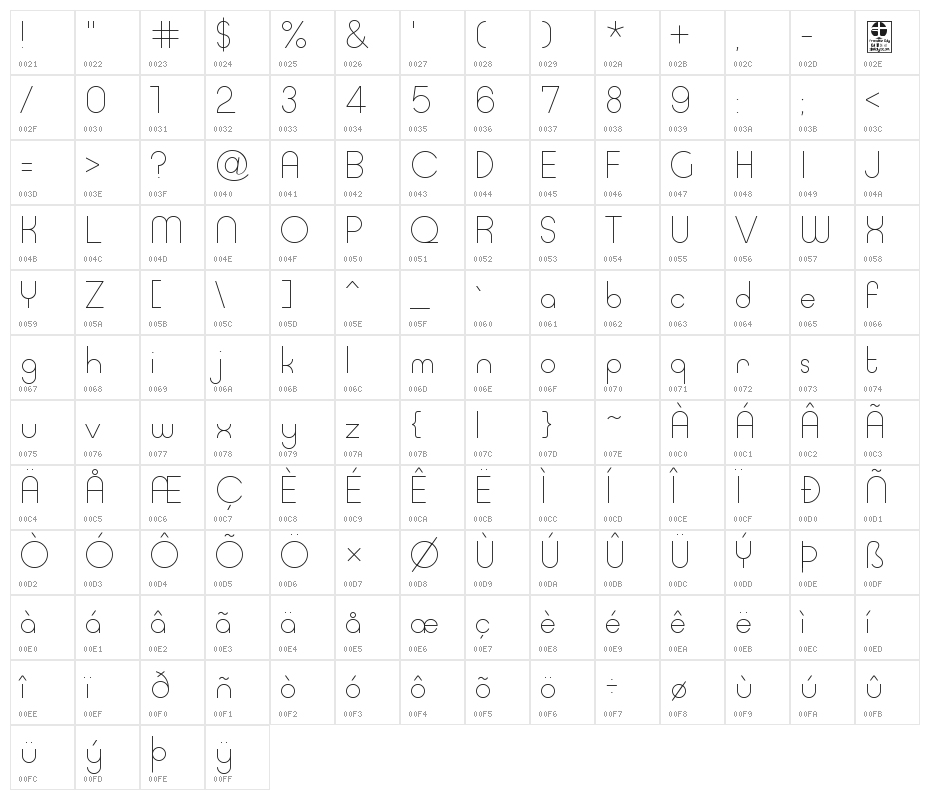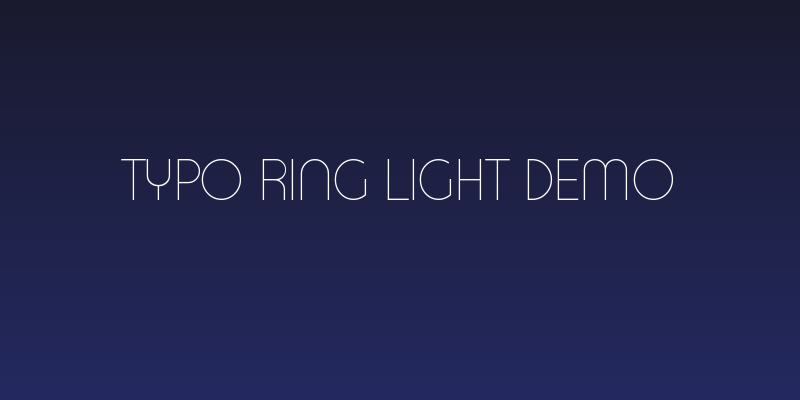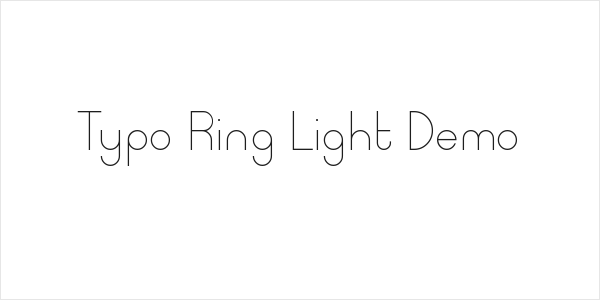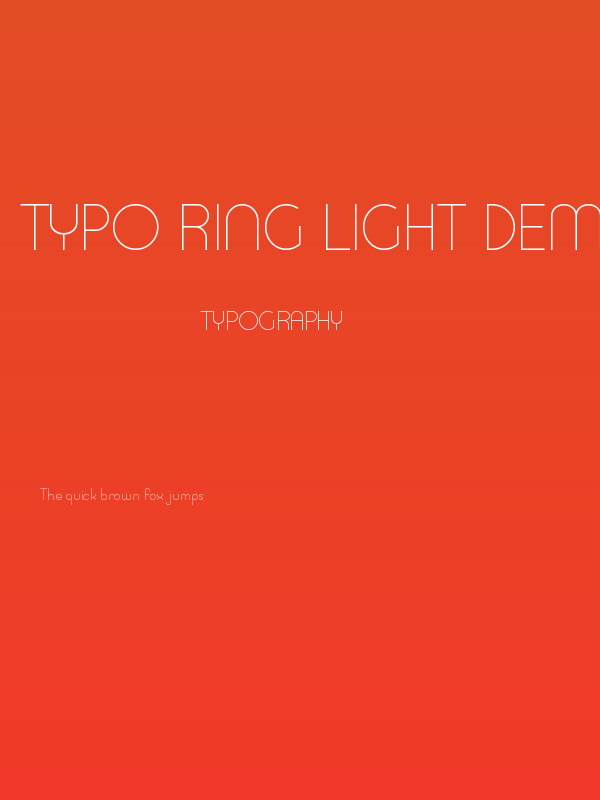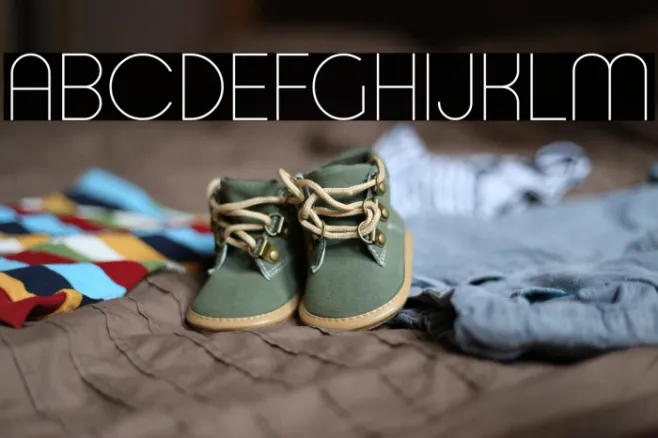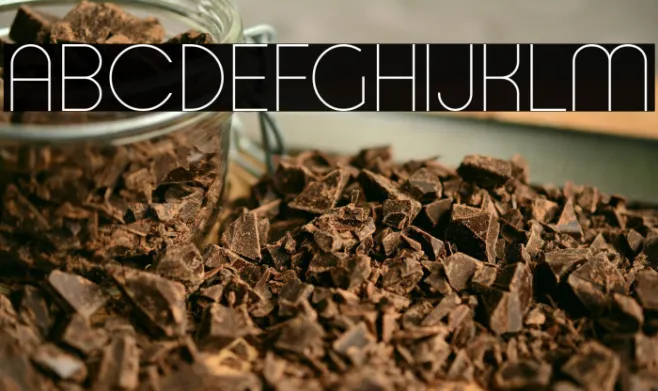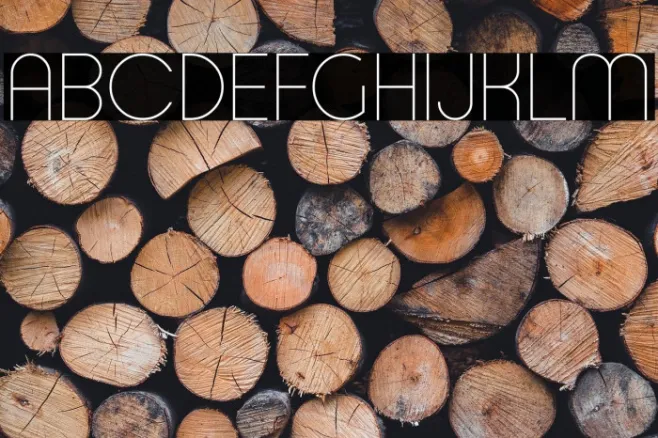
Typo Ring Light Demo Font
Typo Ring Light Demo Description
This font features a clean, geometric design with a modern and minimalist aesthetic. The characters are constructed with thin, uniform lines that create a sense of elegance and simplicity. The uppercase and lowercase letters maintain a consistent style, with rounded edges and a balanced proportion. The numerals and special characters are designed to complement the alphabet, offering a cohesive look across all elements. This font's light weight and open forms make it ideal for projects that require a sleek and contemporary appearance.
| Use Case | Headlines, Logos, Digital Interfaces |
| Proposed Projects | Ideal for branding, digital interfaces, modern posters, and minimalist design projects. |